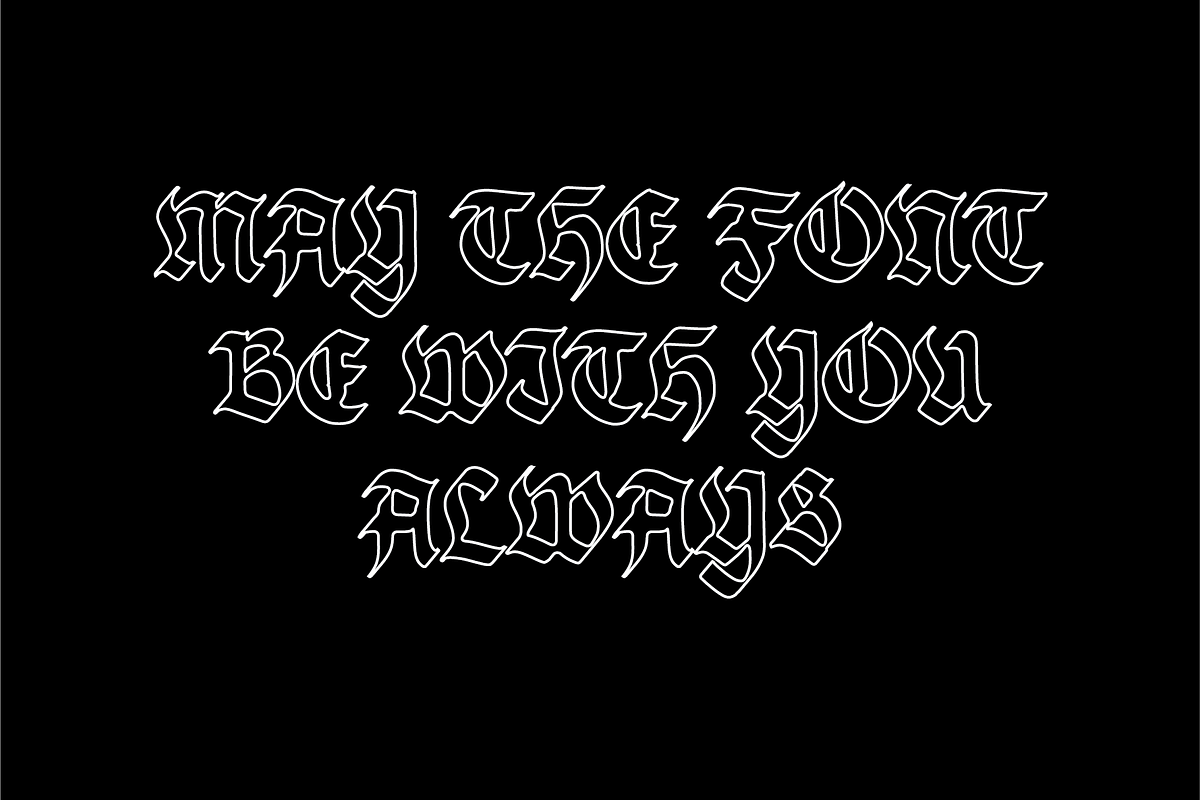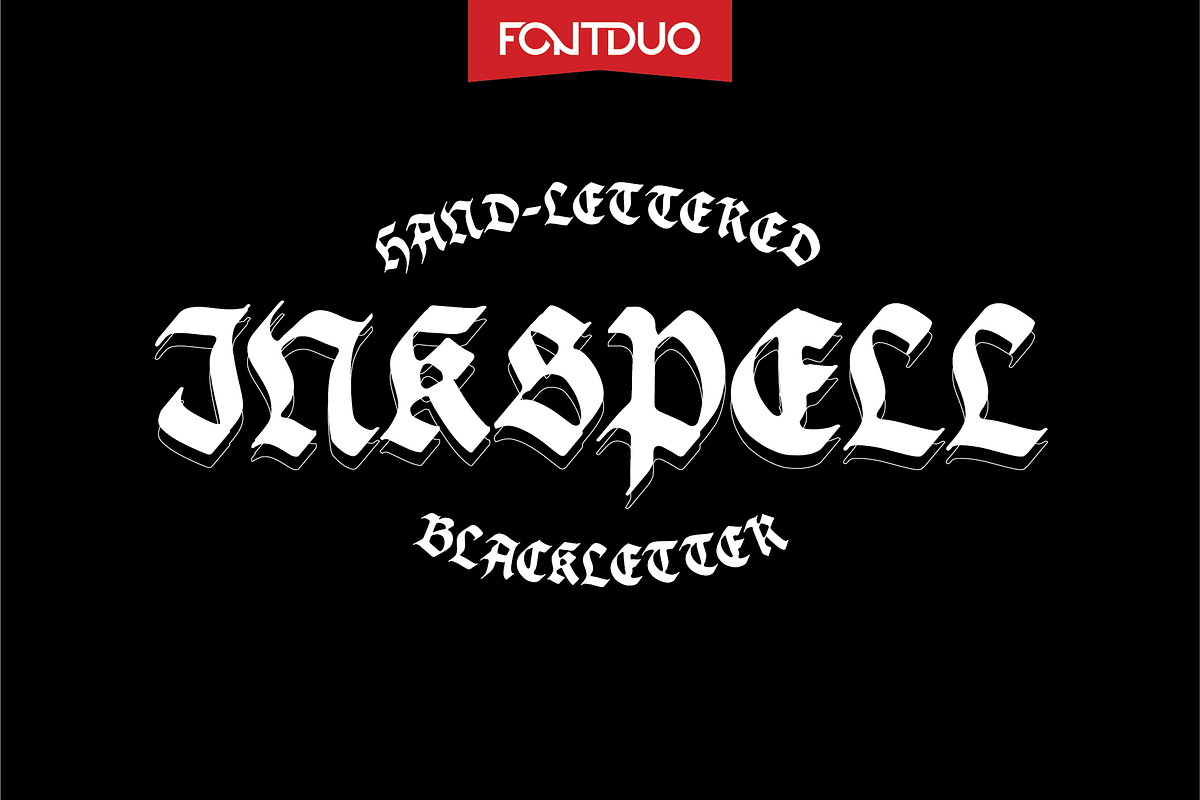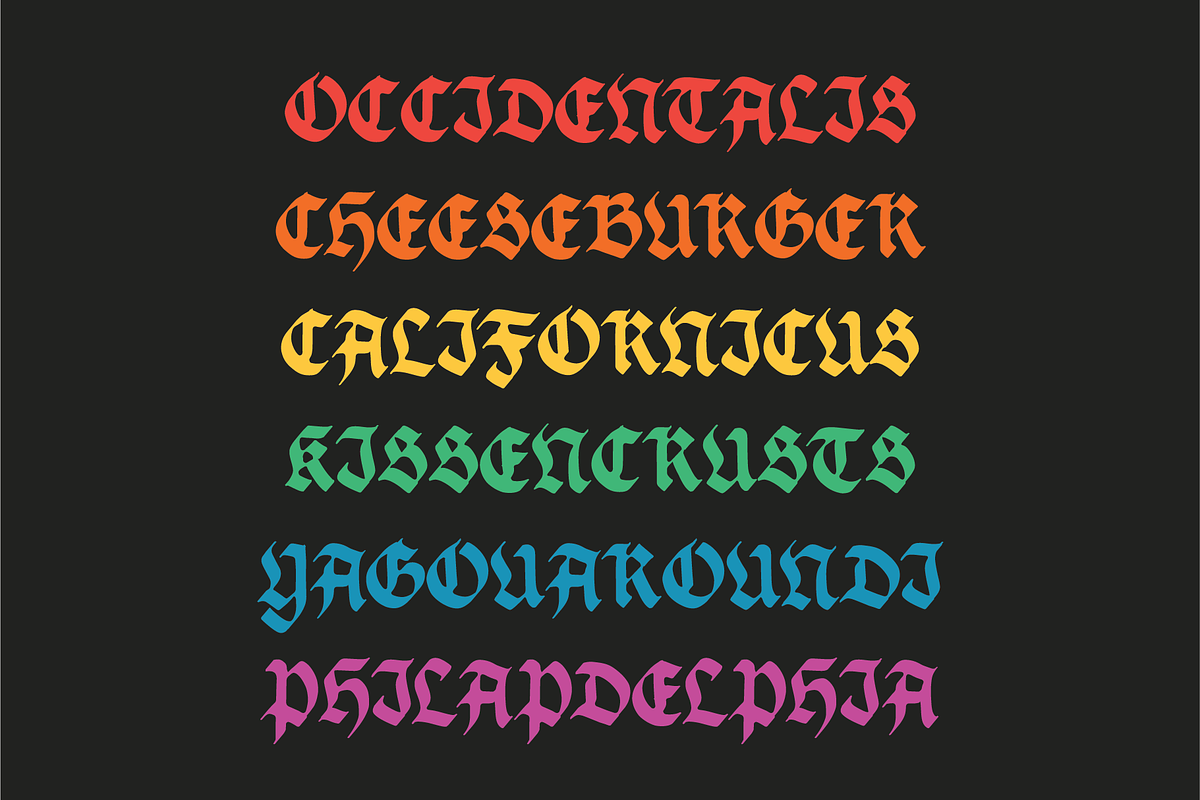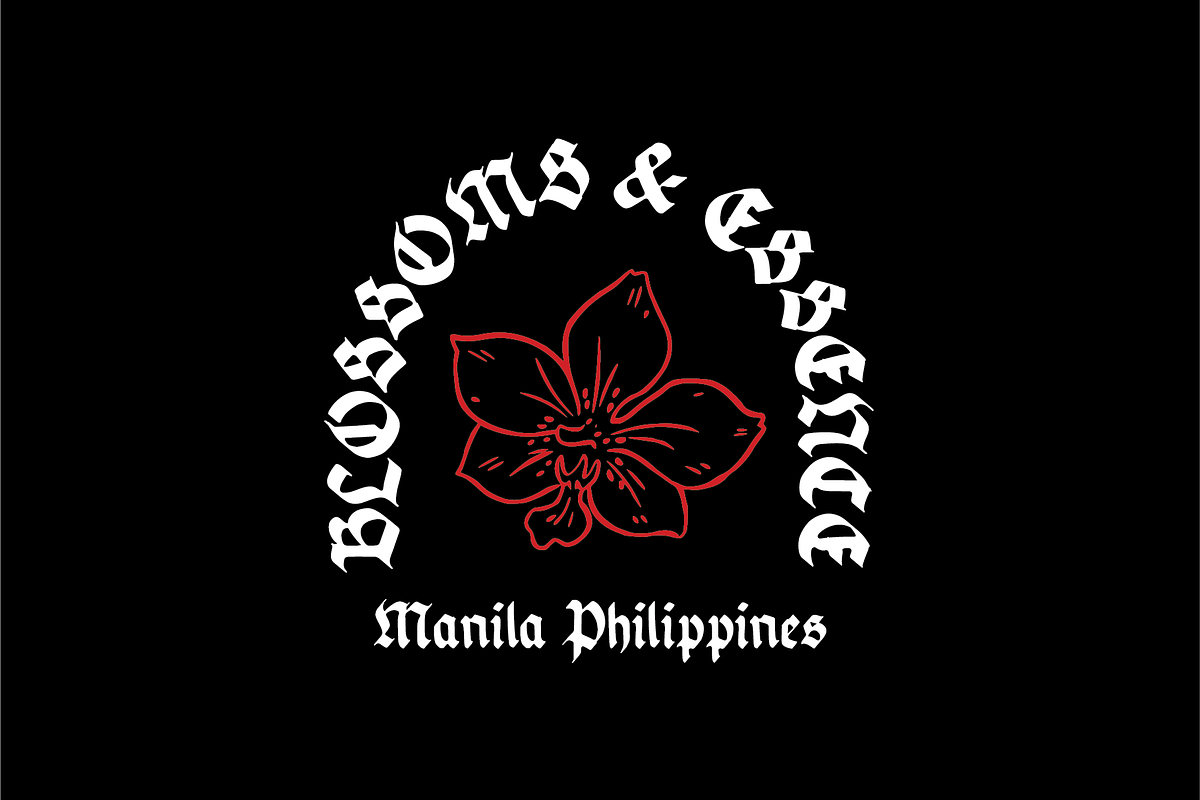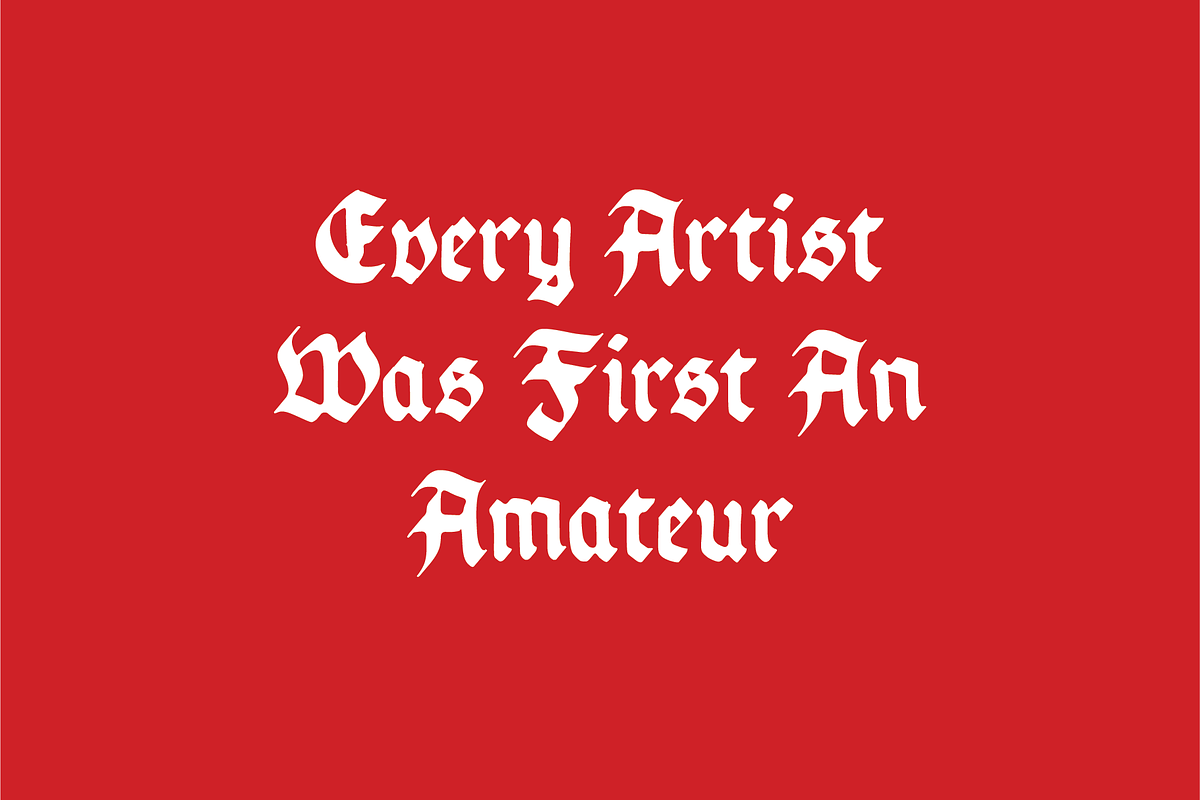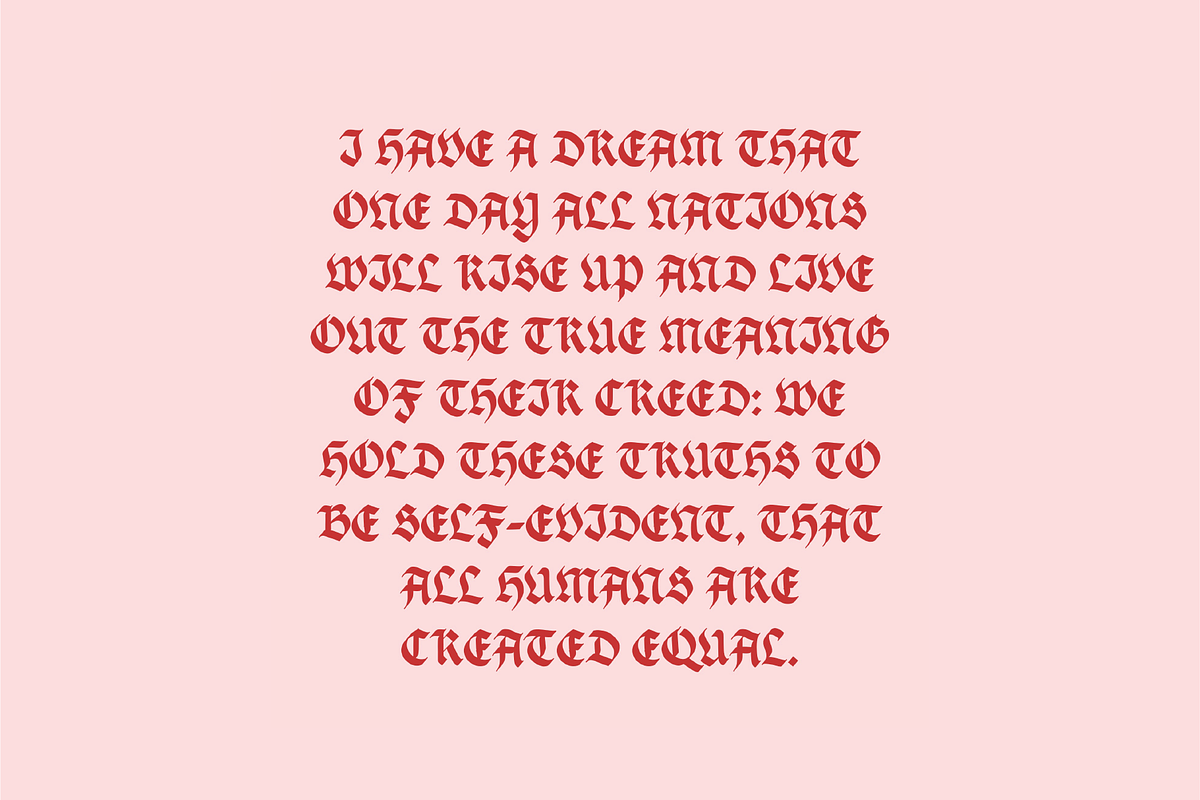
Inkspell Hand-Lettered Blackletter
Inkspell FD is a meticulously hand-lettered blackletter typeface, designed to bring an authentic Gothic aesthetic to your creative projects. Every curve and detail of this font has been crafted with care, making it perfect for a wide range of applications, from vintage-inspired designs to modern calligraphy.
Why Choose Inkspell FD? Authentic Hand-Lettered Design: Inkspell FD captures the essence of traditional blackletter typefaces while offering a unique, hand-drawn character that sets it apart from digital imitations. It’s ideal for adding a personal, artisanal touch to your work.
Versatile Usage: This typeface is perfect for everything from branding, logo design, and product packaging to wedding invitations, posters, and tattoo designs. Its distinctive style works beautifully for both digital and print mediums.